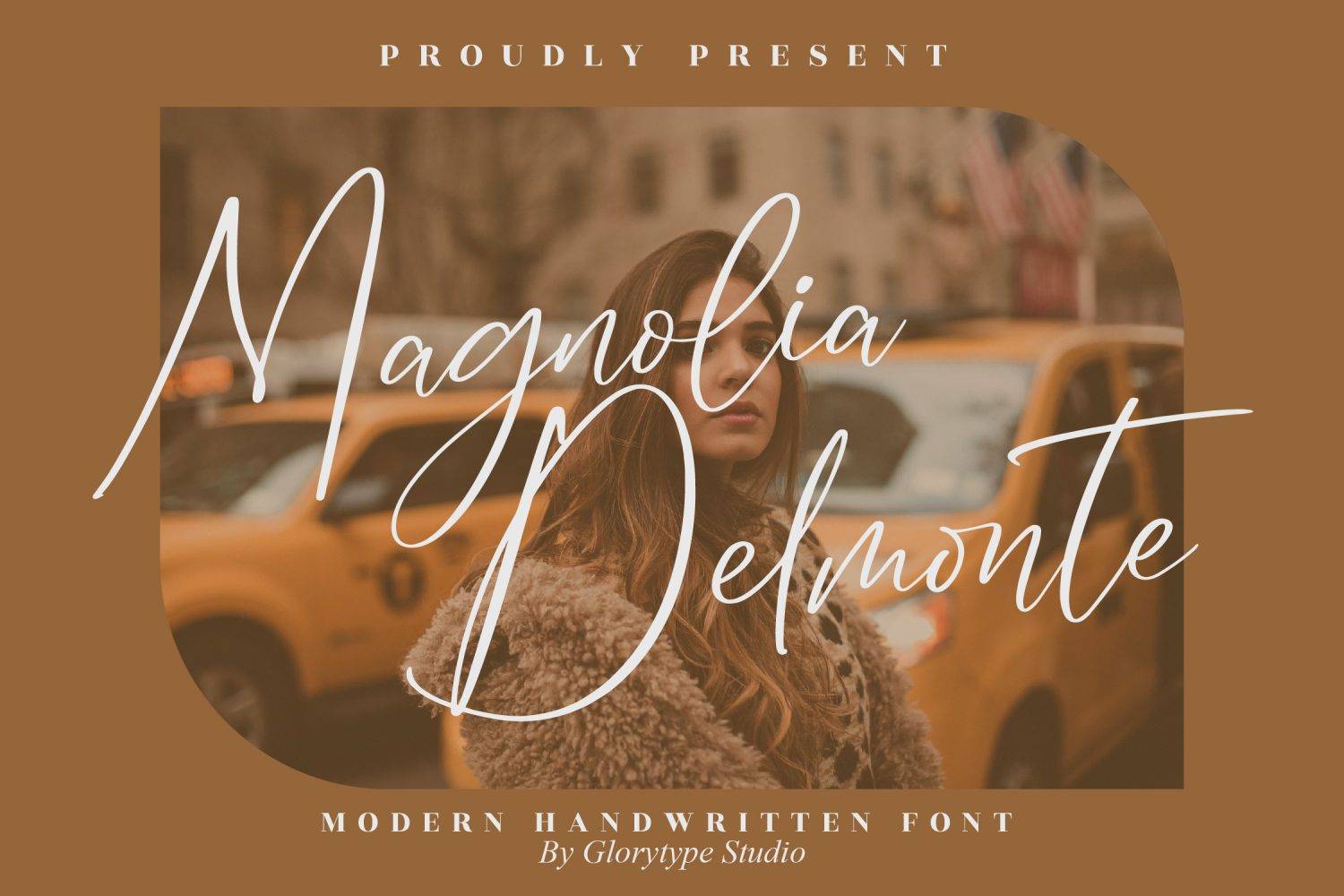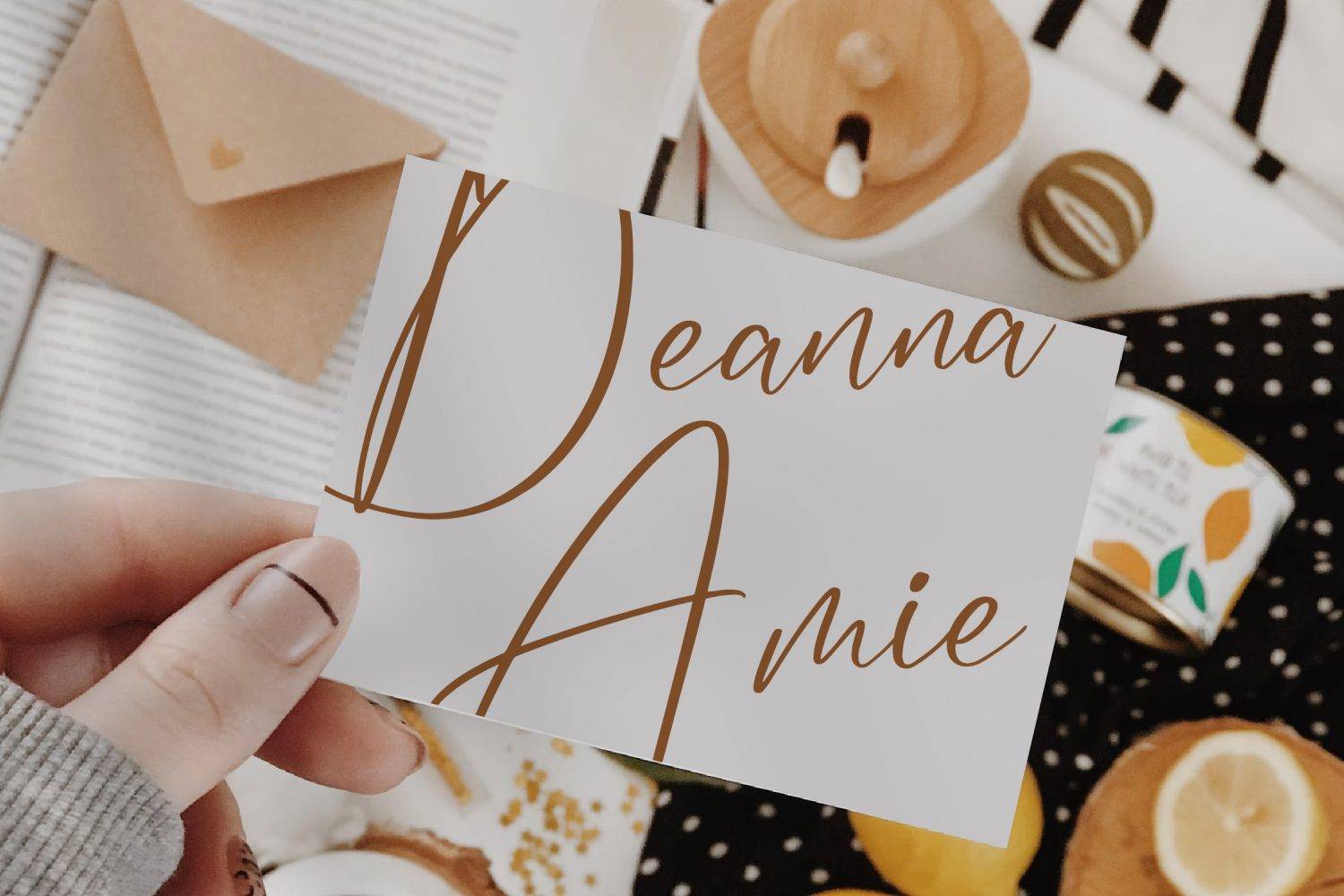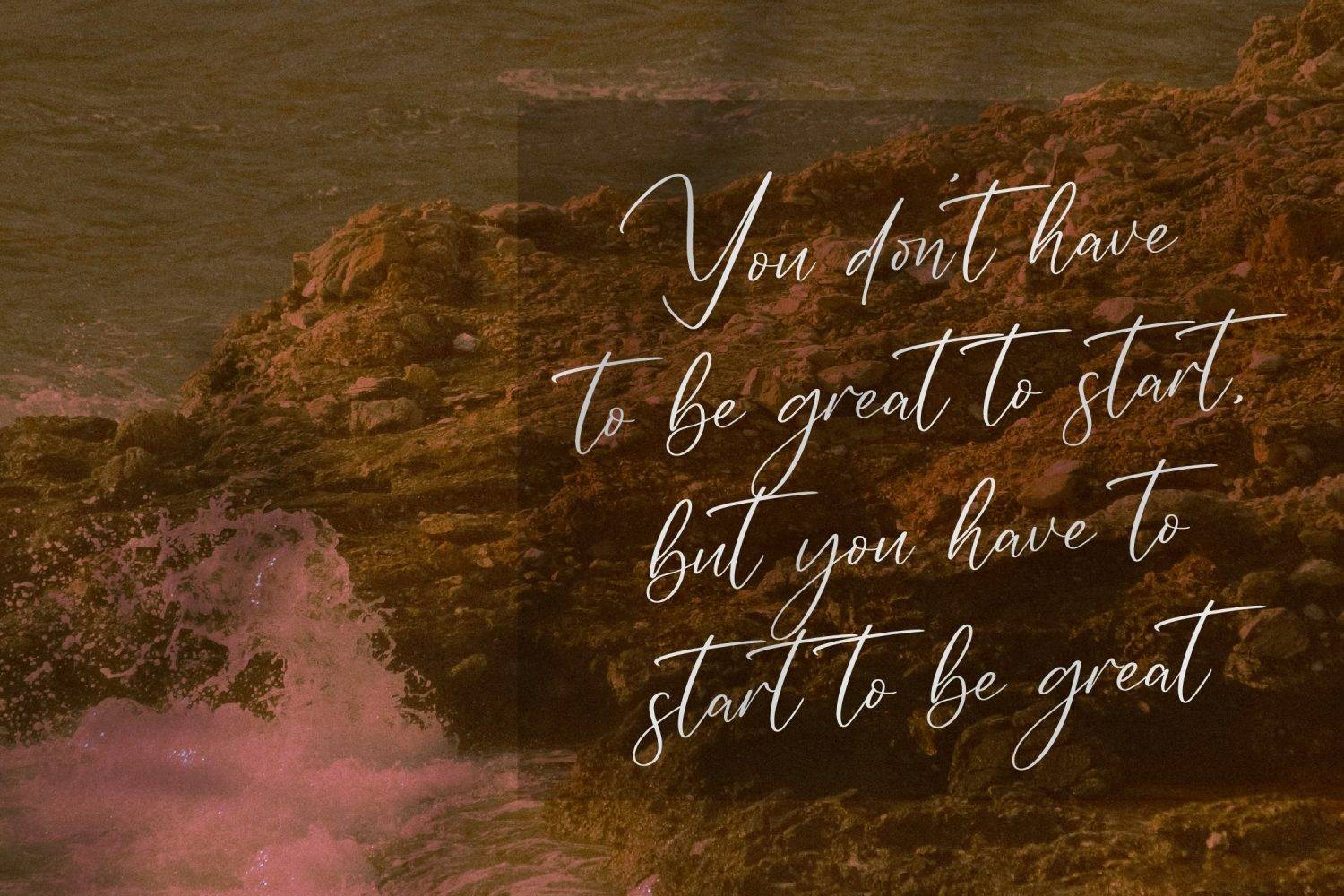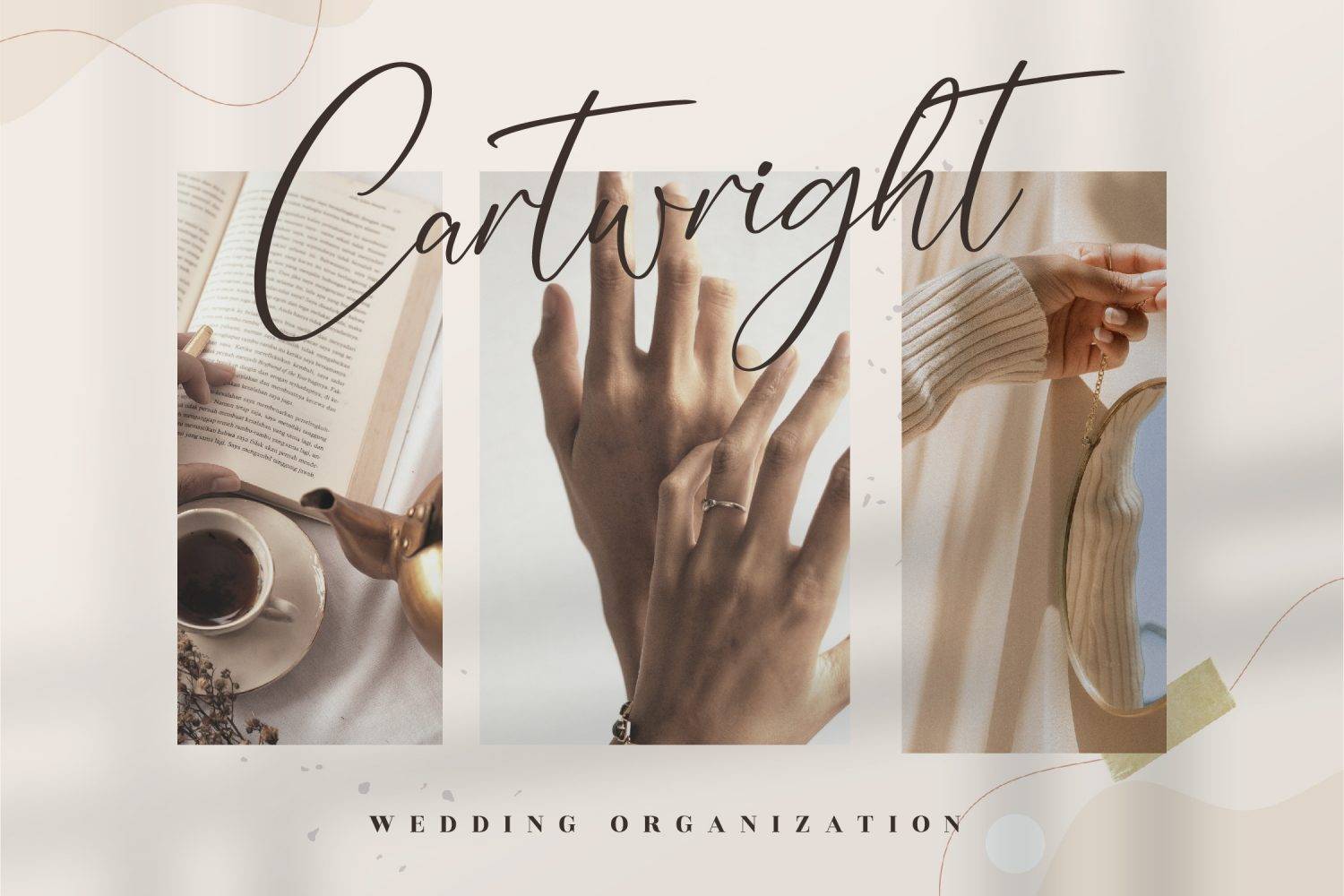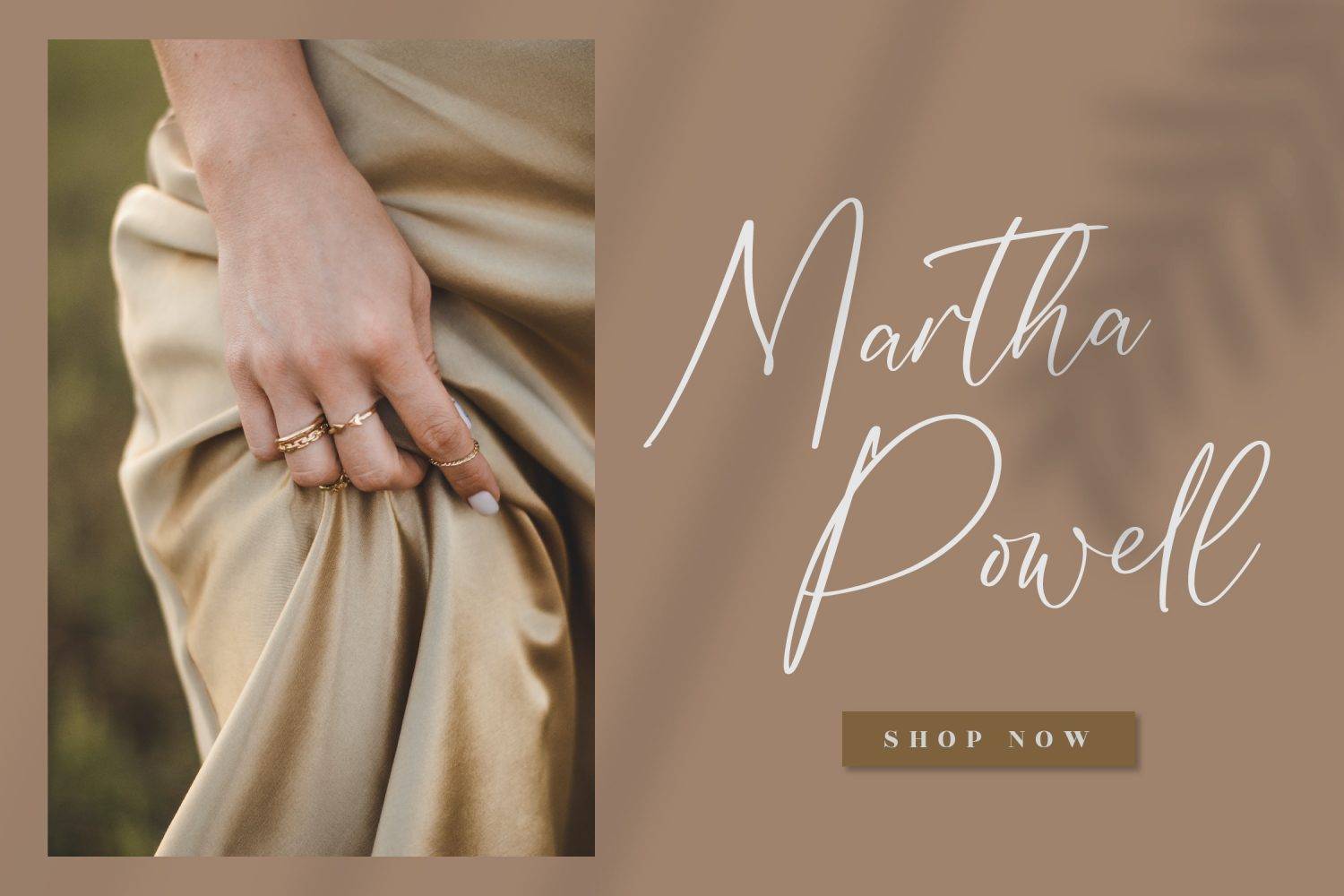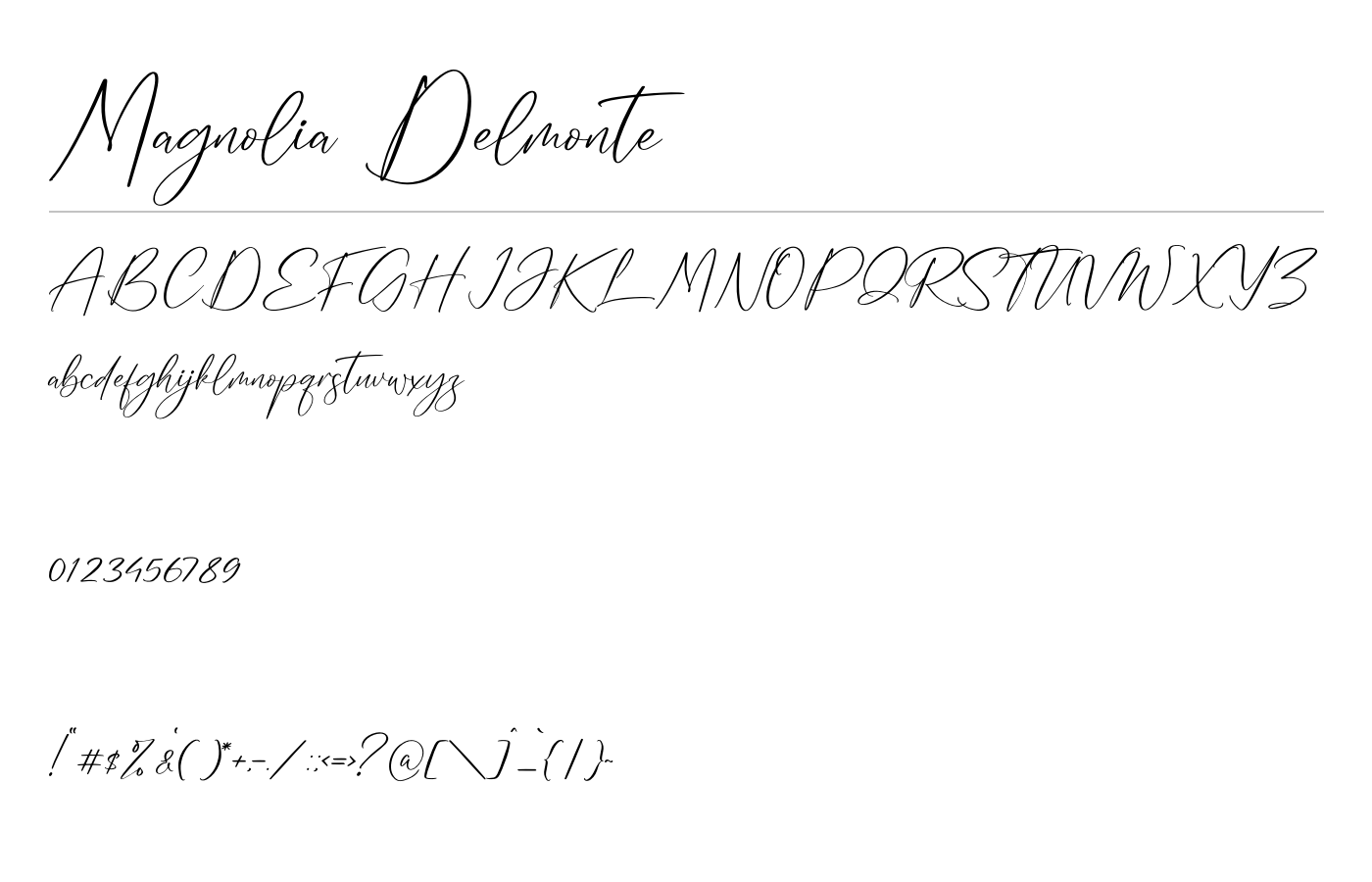
Magnolia Delmonte is a delicate and elegant script font featuring thin, flowing strokes that mimic natural handwriting with a refined, artistic touch. Its slender letterforms and subtle variations in line weight offer a sophisticated and graceful feel, making it ideal for luxury branding, wedding invitations, and upscale editorial projects. This font works beautifully in designs that seek a personal yet polished style, blending modern elegance with a light, airy aesthetic.
Magnolia Delmonte Font
About Magnolia Delmonte Font